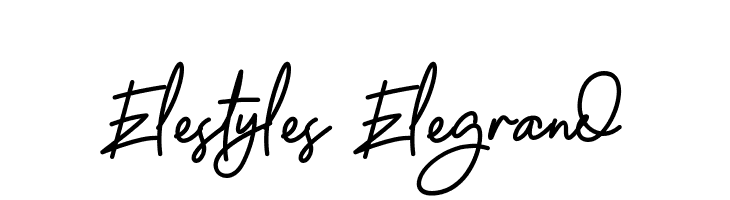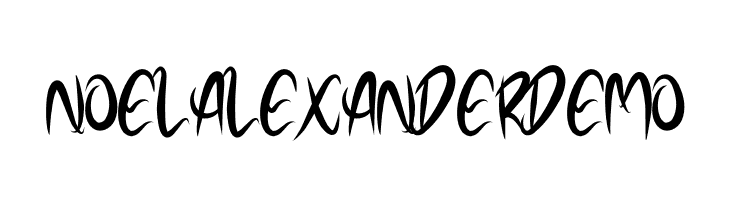
A futuristic, gradient-style font with horizontal line detailing.
A bold, hollow, geometric font with a modern and decorative style.
A modern, high-contrast font with a sleek, geometric design.
A bold, italic font with a modern and dynamic style.
A stylish, cursive font with elegant, flowing strokes.
A bold, expressive script font with a dynamic, handcrafted feel.
A bold, impactful font with thick strokes and strong presence.
A dynamic, expressive handwritten font with fluid, flowing letterforms.
A playful, handwritten font with rounded, bold letterforms.
A bold, rounded font with smooth curves and uniform strokes.
设计师偏爱 Zyborgs Gradient, Idiotism Hollow Regular, Quimbie, Atozimple ExtraBold Italic and Ammanda,因为其造型干净、适用范围广—— 从品牌识别到落地页、海报都能胜任。